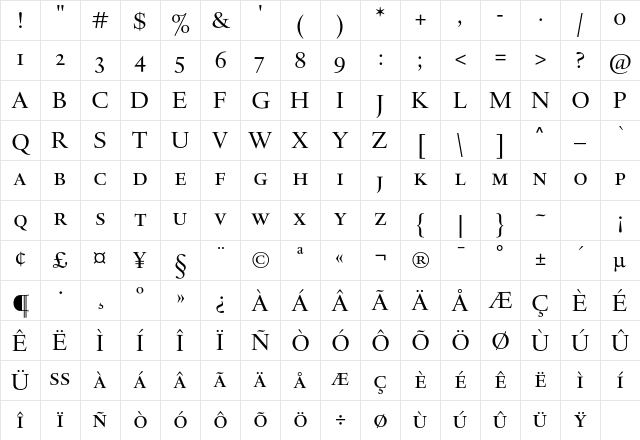
Complete DTLHaarlemmerDCaps Regular glyph index. Displaying only characters natively supported by DTLHaarlemmerDCaps Regular font.
DTLHaarlemmerDCaps is a composed and adaptable typeface that performs quietly and consistently across a wide range of design contexts.